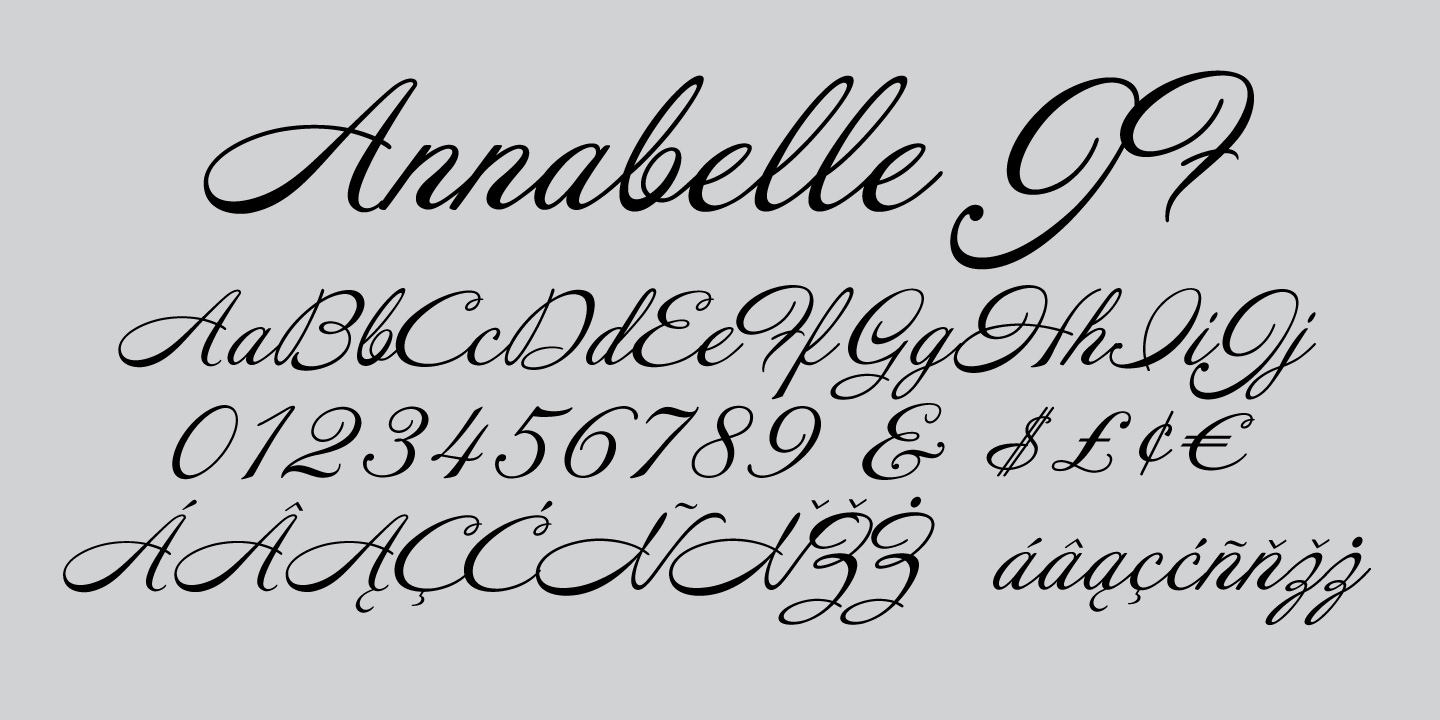
Annabelle JF Font is perfect for elegant wedding invitations, luxury fashion branding, high-end cosmetics packaging, romantic greeting cards, boutique hotel signage, fine jewelry advertising, sophisticated restaurant menus, premium spa materials, upscale event stationery, and any projects that require refined femininity with timeless grace.
What makes Annabelle JF Font exciting is its exquisite blend of classic elegance and modern sophistication that embodies the grace and beauty of refined femininity. This enchanting typeface features delicate curves, flowing letterforms, and subtle flourishes that create an atmosphere of timeless romance and sophisticated charm. The font's elegant character makes it perfect for brands seeking to communicate luxury, refinement, and the enduring appeal of classic beauty in their visual communications.
Annabelle JF Font family includes graceful style variations featuring light, regular, medium, and bold weights. The font family also offers romantic italic versions with enhanced flourishes, along with decorative swashes and ornamental alternates that provide extensive customization options. Special features include elegant ligatures, stylistic sets, and feminine ornaments that enhance the sophisticated atmosphere of luxury design applications.